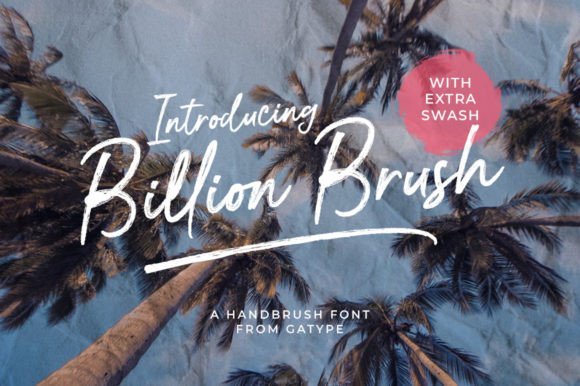
Enter the Billion Brush Font, a handwritten font with a rough texture that’s perfect for adding a fun and friendly touch to your projects. The process of creating this font involves strong, fast strokes on paper, resulting in a unique dry brush style that’s sure to make your designs stand out.
As a designer, you’ll love the Billion Brush Font for its versatility and ease of use. With PUA encoding, you’ll have access to all the glyphs and strokes, making it a valuable addition to your design toolkit. So why not give it a try and see how it can add a personal touch to your next project?
Billion Brush Font Key Features
- Unique Characteristics: Billion Brush Font features a distinctive brush stroke effect, giving it a hand-drawn, artistic look that sets it apart from other fonts.
Billion Brush Font Review
Overall, I think the Billion Brush Font has some great qualities that make it stand out, but it’s not without its limitations. Let’s start with the positives: ✨ the font has a unique, hand-painted feel that’s perfect for creative projects like artwork, posters, and even branding. ✨ The character set is extensive, including a wide range of symbols and punctuation marks. ✨ The font also supports multiple languages, making it a great option for international projects.
However, there are a few things that could be improved: ⚠️ the font can be quite rough around the edges, which may not be suitable for all types of projects. ⚠️ The weight of the font is also somewhat limited, which can make it difficult to achieve the desired level of boldness or lightness.
- Unique, hand-painted feel
- Extensive character set
- Support for multiple languages
- Unique, creative aesthetic
In terms of overall impression, I would say that the Billion Brush Font is a great option for creative projects that require a unique, hand-crafted feel. While it may not be the best choice for more formal or professional projects, it’s definitely worth considering for anything that needs a bit of personality.
Tips for Getting the Most Out of Billion Brush Font
To get the most out of Billion Brush Font, use it for:
- Typography-based designs
- Handwritten or cursive text effects
- Emphasizing important text or headings
Billion Brush Font is commonly used for:
- Editorial and publishing content
Alternatives to Billion Brush Font
Great Vibes is a modern, handwritten font perfect for creating a relaxed and casual atmosphere. It is ideal for use in logos, signage, and advertising materials. Great Vibes has a more elegant and refined feel compared to Billion Brush Font, which has a more rustic and textured look.
Alex Brush is a beautiful, elegant font that features a mix of handwritten and calligraphic elements. It is suitable for use in branding, packaging, and editorial design. Compared to Billion Brush Font, Alex Brush has a more polished and sophisticated feel, making it a great choice for high-end projects.
Q: Can I customize the Billion Brush Font to fit my design needs?
Yes, the Billion Brush Font is fully editable in most design software. You can adjust the font’s size, color, and style to fit your design needs. Additionally, the font’s OpenType features allow for advanced typographic control, including ligatures, swashes, and contextual alternates.